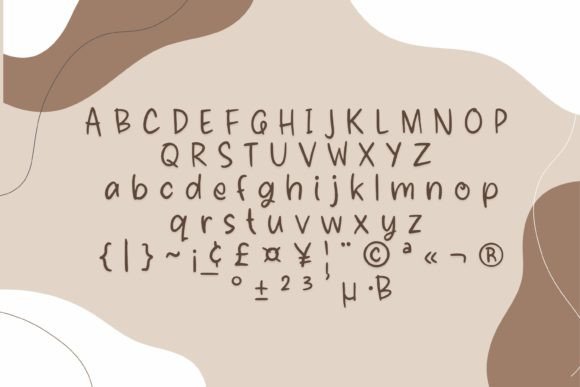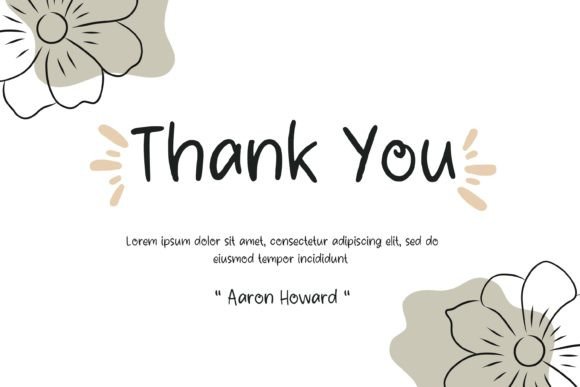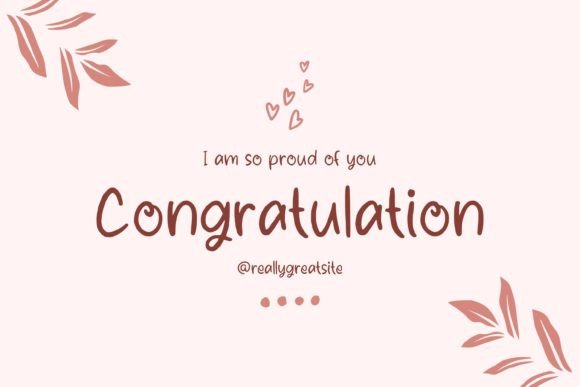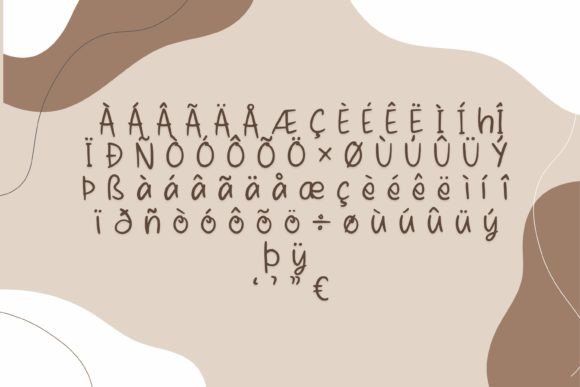
Introduction to Natlycalie Font
Have you ever stumbled upon a font that perfectly captures the essence of your creative vision? For designers, finding that one special font can be a game-changer, elevating a project from ordinary to extraordinary. For me, that font is Natlycalie Font – a charming and whimsical typeface that adds a touch of personality to any design project.
With its fluid, slightly irregular letters, Natlycalie Font gives your designs a natural and organic feel, making it perfect for creative projects that require a unique and eye-catching look. Whether you’re designing a wedding invitation, creating a social media post, or working on a logo, Natlycalie Font is an excellent choice for designers who want to make a statement without sacrificing readability.
In this article, we’ll delve into the world of Natlycalie Font, exploring its features, versatility, and why it’s a valuable resource for designers looking to add a touch of magic to their creative projects.
Key Features of Natlycalie Font
- The Natlycalie Font is a high-quality design resource perfect for creative projects, offering a unique and stylish touch.
- This font’s unique characteristics include its elegant and modern design, making it ideal for creative projects that require a touch of sophistication.
Honest Review: Natlycalie Font
I recently had the chance to work with the Natlycalie Font for a creative project, and I must say it was a delightful experience. This font is a fantastic addition to any design resource library, offering a unique and elegant touch to any text.
Some of the font’s notable features include:
- A high-quality design that’s perfect for both print and digital use
- A wide range of font styles to suit any creative project
However, there are a few limitations: ⚠️ The Natlycalie Font may not be suitable for use in extremely small text sizes, as the lines can become slightly blurry. Additionally, some users may find the font to be a bit too minimalist for their taste.
Overall, I’m thoroughly impressed with the Natlycalie Font, and I would highly recommend it to any designer looking for a high-quality, versatile font to add to their collection.
Getting the Most Out of Natlycalie Font
To get the most out of Natlycalie Font, use it in conjunction with other high-quality design resources. Experiment with different font sizes, colors, and arrangements to create visually appealing designs.
The Natlycalie Font is ideal for a variety of creative projects, including:
- Branding
- Typography